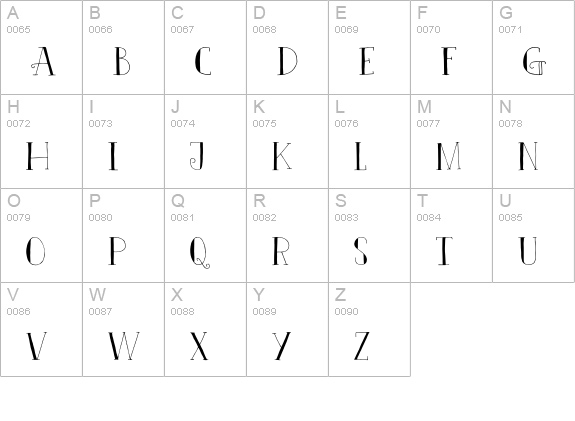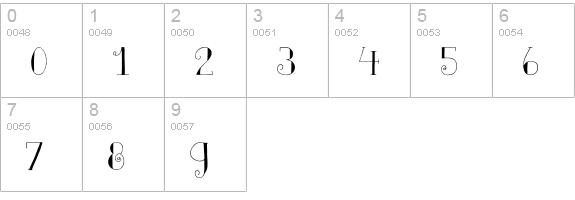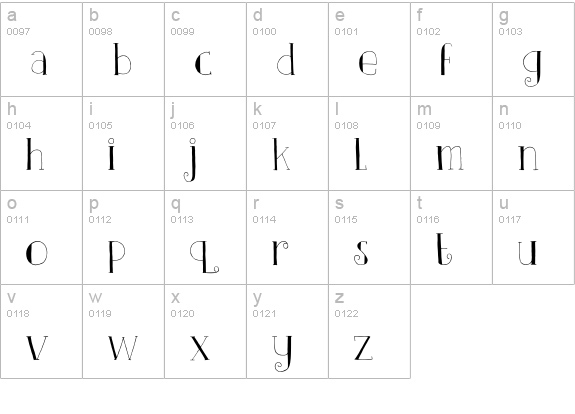
DK Clair De Lune Font Details
DK Clair De Lune is an enchanting and elegant font that exudes a sense of romance and sophistication. With its delicate curves and intricate details, this font captures the essence of moonlit nights and dreamy atmospheres. Its flowing strokes and graceful letterforms make it perfect for creating beautiful typography designs, wedding invitations, or any project that requires a touch of elegance. The beauty of DK Clair De Lune lies not only in its aesthetics but also in its versatility. This font is suitable for both formal and informal occasions, adding a touch of charm to any design. Whether you want to create a vintage-inspired poster, a whimsical greeting card, or a timeless logo, DK Clair De Lune will elevate your design to new heights. One of the best things about DK Clair De Lune is that it is free. Yes, you heard that right! This stunning font is freely available to download at FontsMarket.com. You don't have to spend a fortune to bring elegance and sophistication to your projects. With DK Clair De Lune, you can create stunning designs without breaking the bank. So why wait? Visit FontsMarket.com today and download DK Clair De Lune for free. Unleash your creativity and let this beautiful font transform your designs into works of art. Whether you're a professional designer or a hobbyist, DK Clair De Lune is sure to become your go-to font for all your creative endeavors.